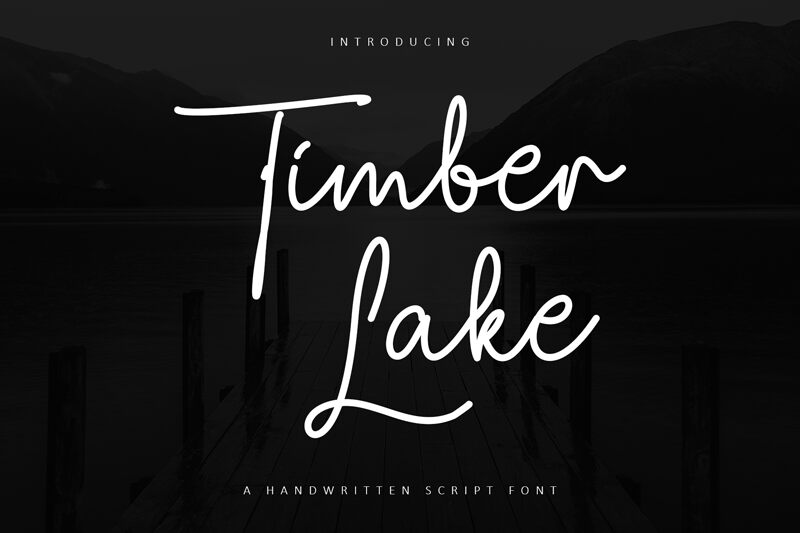
Timber Lake, a charming handwritten typeface designed by Tikara Sari, exudes an air of effortless elegance. With its light weight, this font adds a delicate touch to any project.
Its soft curves and authentic brush strokes create a warm and inviting atmosphere, making it ideal for wedding invitations or romantic greeting cards. For an organic feel, use Timber Lake in packaging designs or branding materials related to natural products such as skincare or handmade crafts.
Let Timber Lake illuminate your designs with its graceful and distinctive handwritten style.